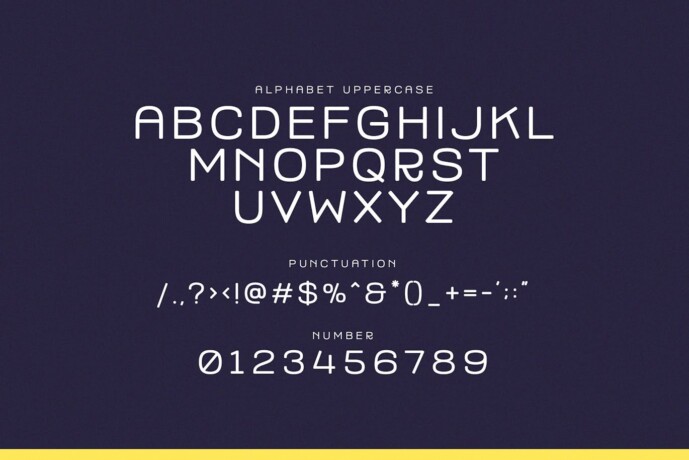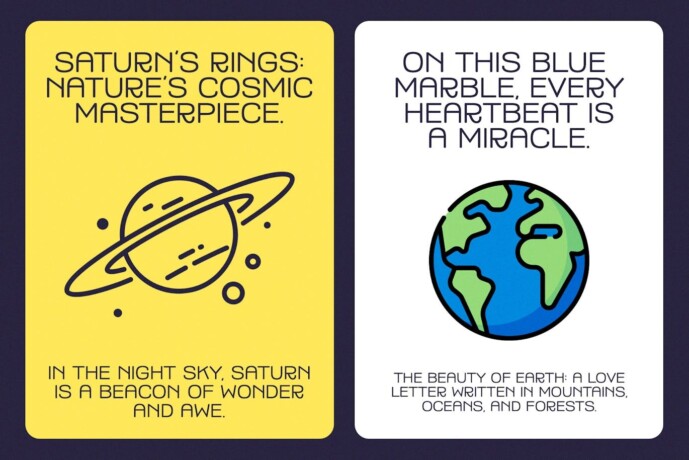
Reminder Font
Designer: typeformers
Reminder Font – Modern Sans Serif Display. Reminder is a modern and simple font ideal for displaying titles, logos, branding, magazines, product packaging and invitations